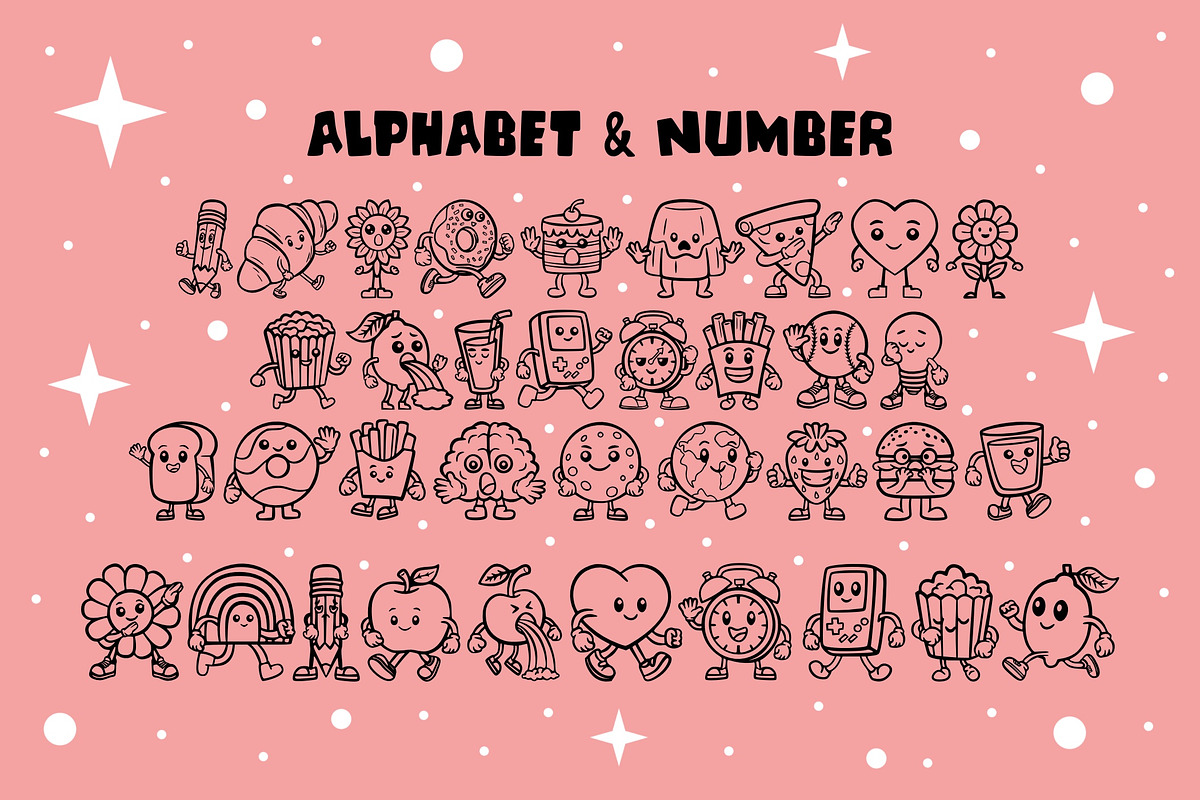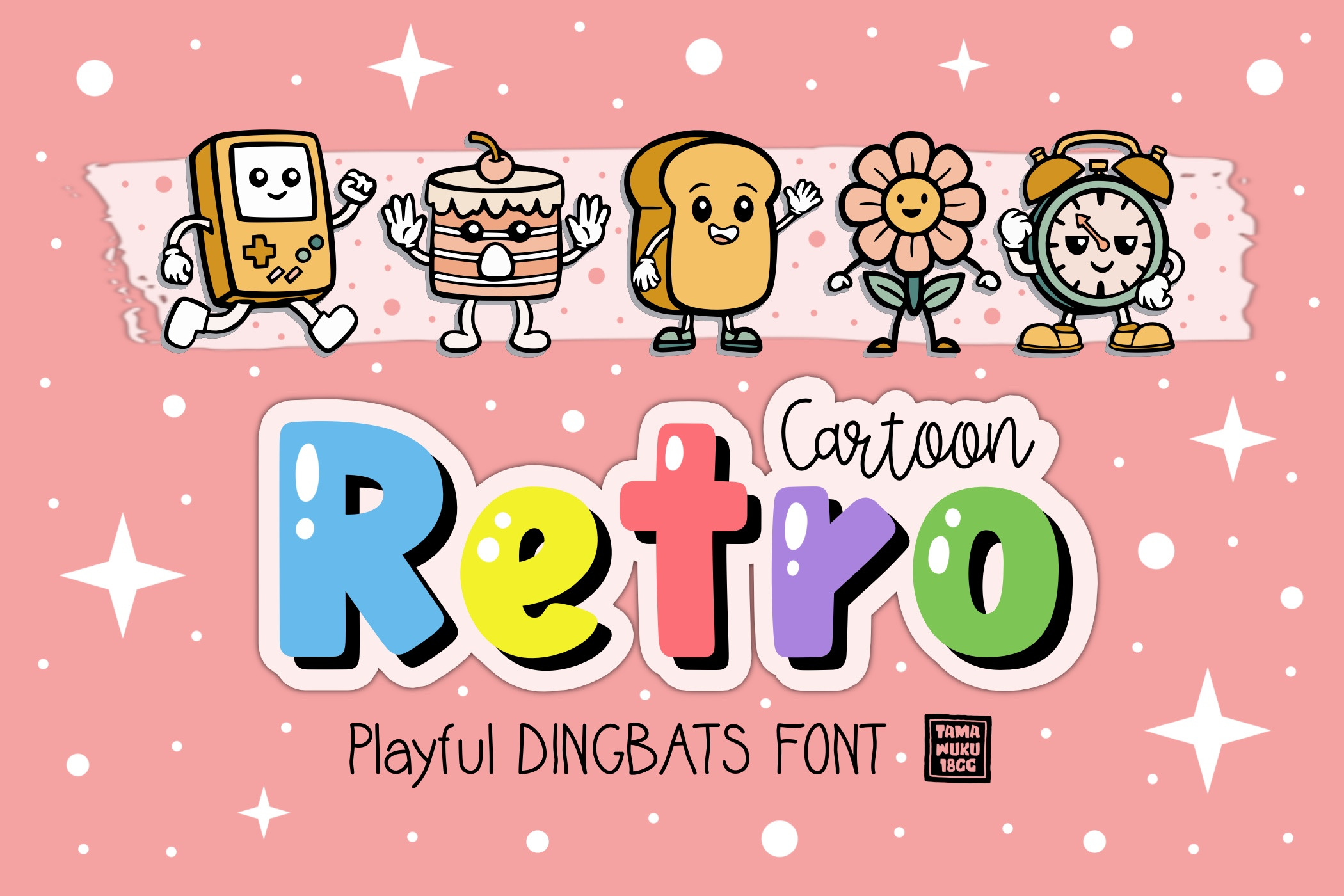
Retro Cartoon OTF Dingbats Font
Retro Cartoon is a groovy vintage dingbats font. This font is the perfect fit for all of your logos, wall art, signs, cards, art prints, t-shirts, coloring page, and much more!